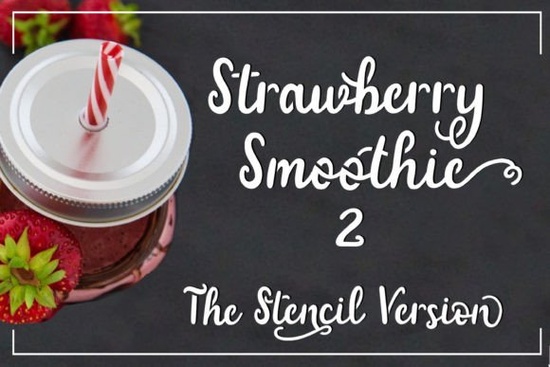
If you're working on a craft project that involves stencils, vinyl cutting, or any design where open shapes are essential, the Strawberry Smoothie Font is worth a closer look. This hand-lettered script font stands out because all its counters the enclosed spaces inside letters like “o,” “a,” or “e” are intentionally left open. That means no trapped islands of material when you cut it out, making it especially practical for makers who work with Cricut, Silhouette, or similar tools.
Unlike many decorative script fonts that prioritize flourish over function, Strawberry Smoothie balances charm with usability. Its casual, bouncy letterforms feel friendly and approachable ideal for summer-themed designs, kids’ products, food packaging, or anything with a fresh, playful vibe. Because it’s designed with open counters throughout, you won’t need to manually break paths or add bridges in your design software before cutting.
Why open counters matter for crafters and small businesses
For anyone using vinyl cutters or creating stencils by hand, closed loops in fonts can be a real headache. Letters like “b,” “d,” or “g” often have fully enclosed areas that, when cut from vinyl or paper, fall out or leave gaps. Fixing this usually requires extra steps: adding registration marks, tweaking letterforms, or switching fonts altogether.
Strawberry Smoothie eliminates that problem by design. Every character flows without sealed-off sections, so your cuts stay intact and your final product looks clean whether you’re making custom tumblers, wall decals, or printable party invitations. This reliability saves time and reduces material waste, which matters whether you’re crafting as a hobby or running a small print-on-demand shop.
How it compares to other hand-lettered scripts
If you’ve browsed Creative Fabrica’s script font collection, you’ve likely seen options like Nadel Script, which offers elegant, connected strokes great for wedding stationery, or Barbiedol, a bubbly, ultra-feminine choice for fashion or beauty brands. Then there’s Bikini Babe, with its beachy, relaxed curves perfect for resort merch or swimwear labels.
What sets Strawberry Smoothie apart isn’t just its open structure, but its everyday versatility. It’s less formal than Starlake Retro Script, which leans into vintage diner aesthetics, and more grounded than Milk Peach, whose delicate swashes suit luxury skincare or boutique packaging. Strawberry Smoothie sits comfortably in the middle: cheerful, functional, and ready for real-world use.
Ideas for using Strawberry Smoothie in your projects
This font shines in contexts where readability meets craft-friendly design:
- Custom drinkware: Water bottles, smoothie cups, or café mugs with names or slogans.
- Farmer’s market signage: Fresh produce labels, chalkboard-style posters, or reusable tote bags.
- Kids’ room decor: Wall quotes, growth charts, or personalized name plaques (no tiny pieces to lose!).
- Print-on-demand apparel: T-shirts or hoodies with casual phrases like “Berry Happy” or “Sip the Sunshine.”
- Digital planners and stickers: Its open forms scale well and remain legible even at small sizes.
Because it’s a single-style script (without alternates or swashes), it’s also beginner-friendly. You don’t need advanced OpenType knowledge to get good results just type, size, and go.
Tips for getting the best results
To make the most of Strawberry Smoothie:
- Pair it with a clean sans-serif for contrast think Montserrat, Poppins, or even Arial for quick mockups.
- Avoid tight kerning; the letters already have natural spacing, so squeezing them can reduce legibility.
- Test cut on scrap material first, especially if you’re layering colors or using textured vinyl.
- Use it at medium to large sizes; very small applications might lose the hand-drawn charm.
Remember: while it’s optimized for cutting, it also works well in digital formats like social media graphics, email headers, or PDF printables as long as the context matches its upbeat, informal tone.
Before you download, ask yourself: Do I need a script font that cuts cleanly without extra editing? Is my project casual, summery, or kid-focused? If yes, Strawberry Smoothie could be the low-friction solution you’ve been looking for.